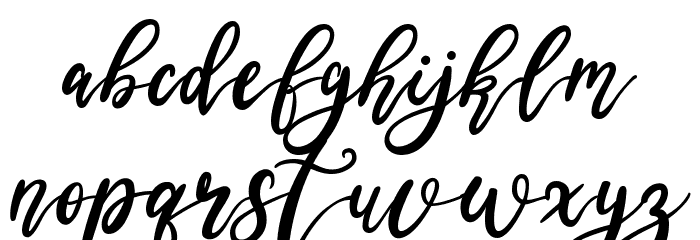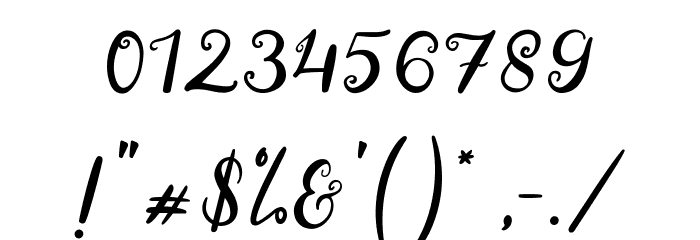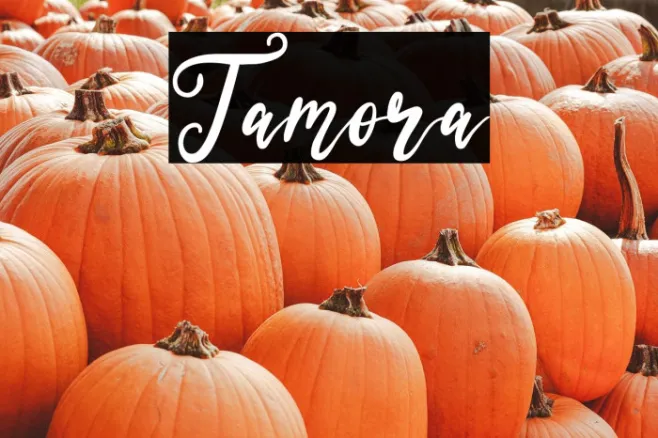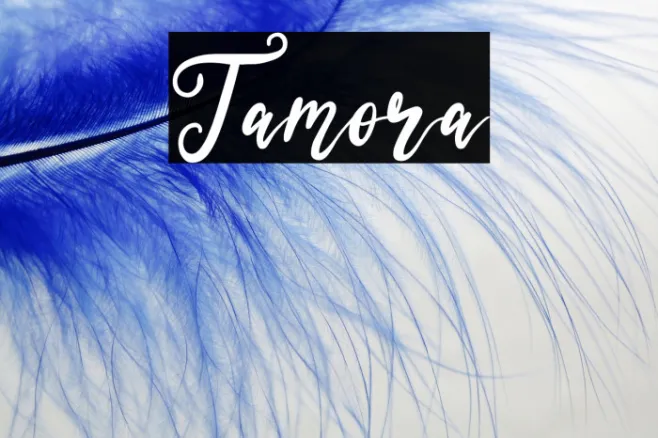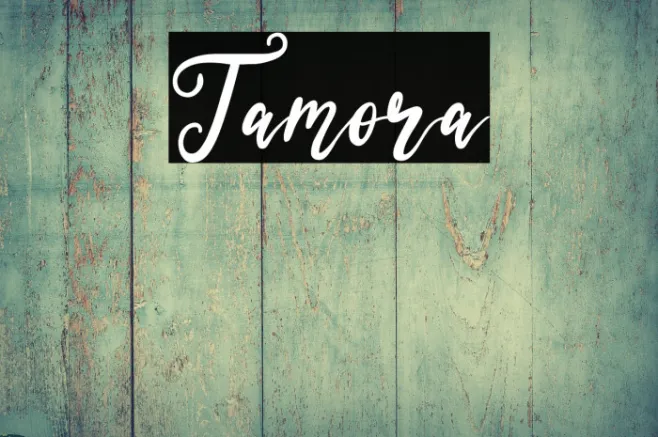
Tamora Font
This font features an elegant and flowing script style, characterized by its smooth, cursive letterforms. The uppercase letters are ornate, with sweeping curves and loops that give a sense of movement and grace. The lowercase letters maintain a consistent style, with a slightly more restrained flourish, making them highly legible while retaining a decorative touch. Numbers and special characters follow the same stylistic cues, ensuring a cohesive appearance across all elements. The font's overall aesthetic is sophisticated and artistic, suitable for projects that require a touch of elegance and personal flair.
An elegant, flowing script font with ornate, cursive letterforms.
- Proposed Projects: Ideal for wedding invitations, greeting cards, branding, and elegant packaging.
- Overall Style: Elegant
- Use Case: Headlines, Invitations, Branding